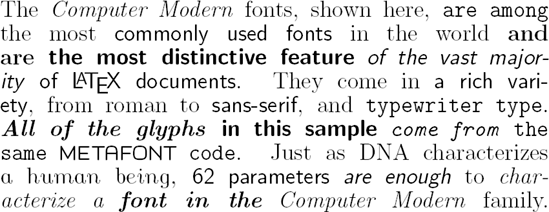
Computer Modern Is The Original Family Of Typefaces Used By The Typesetting Program Tex Created By Donald Knuth With His Metafont Program.
As implied by the name, computer modern is a 'didone', or modern serif font, a genre that emerged in the late 18th century as a contrast to the more organic designs that preceded them. Currently the fonts contain glyphs from latin ( metafont ec, tc, vnr), cyrillic (lh), greek. Computer modern unicode [1] cwtex ttf [2] those in turn based on the font collections: